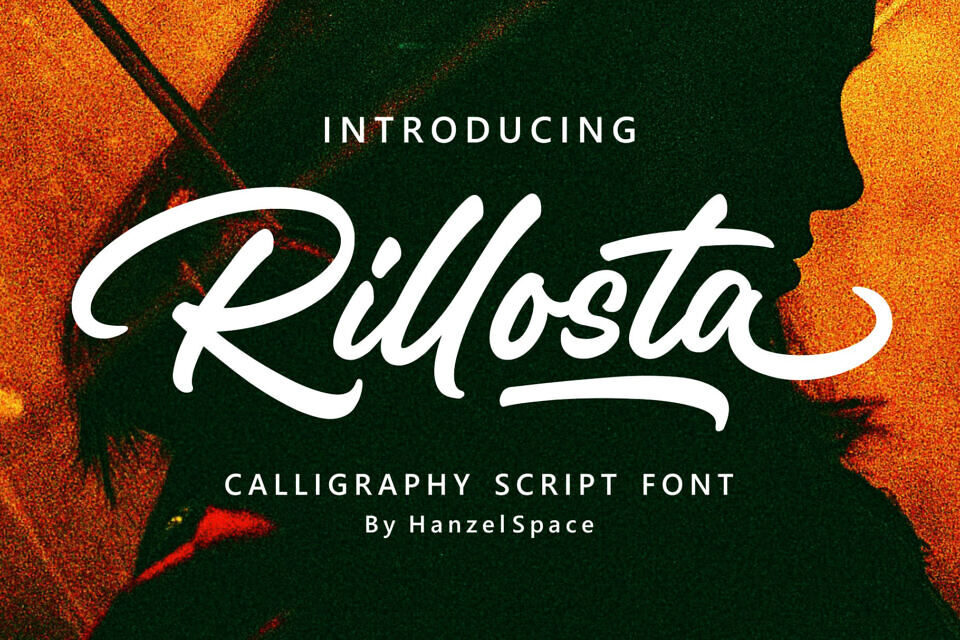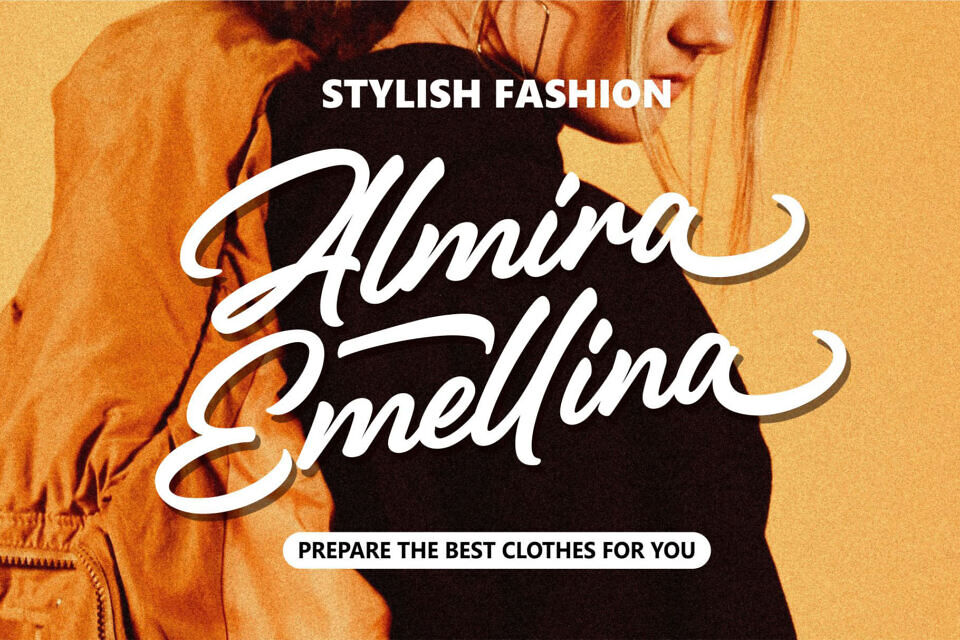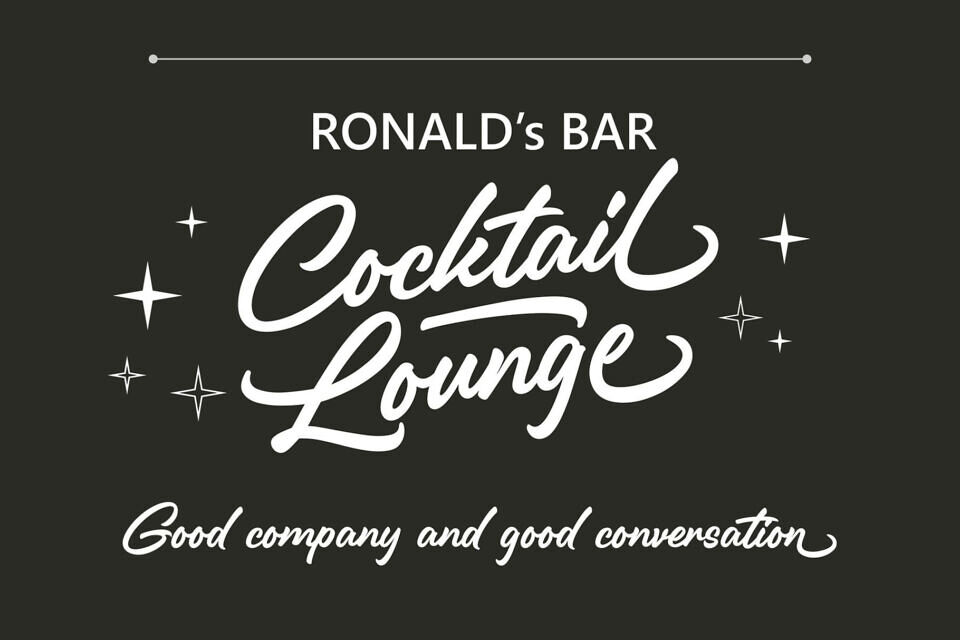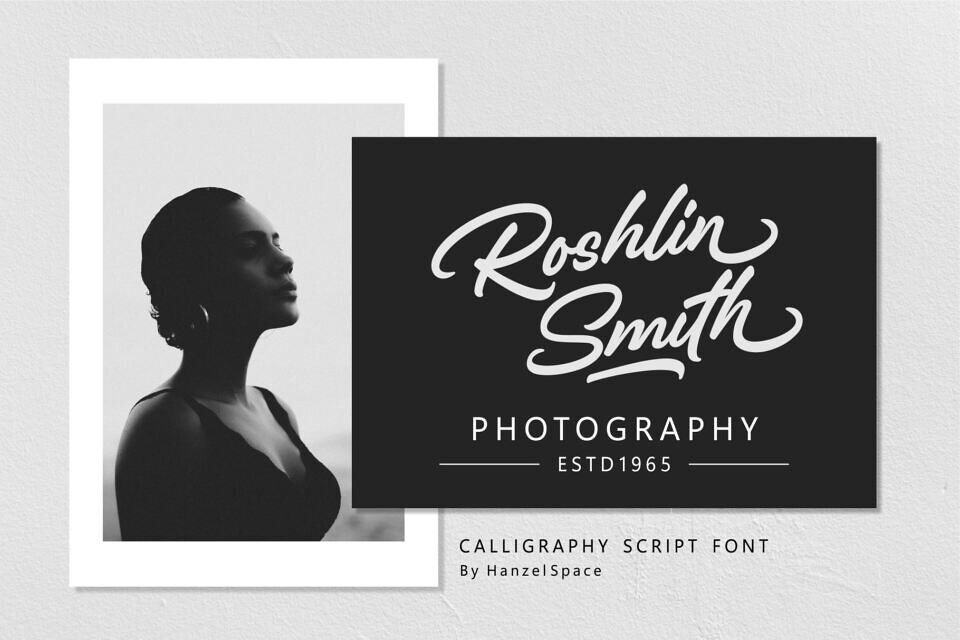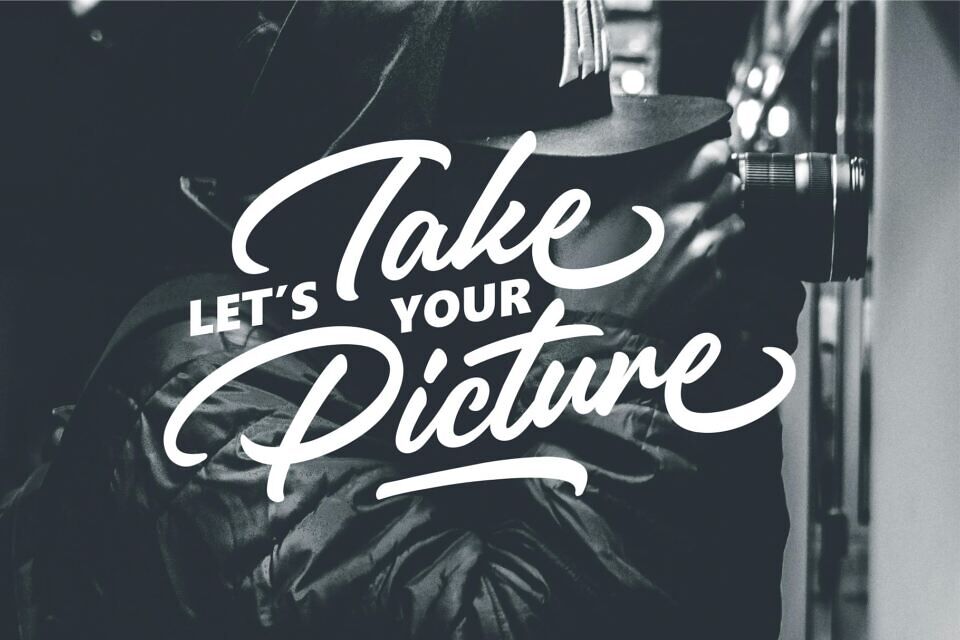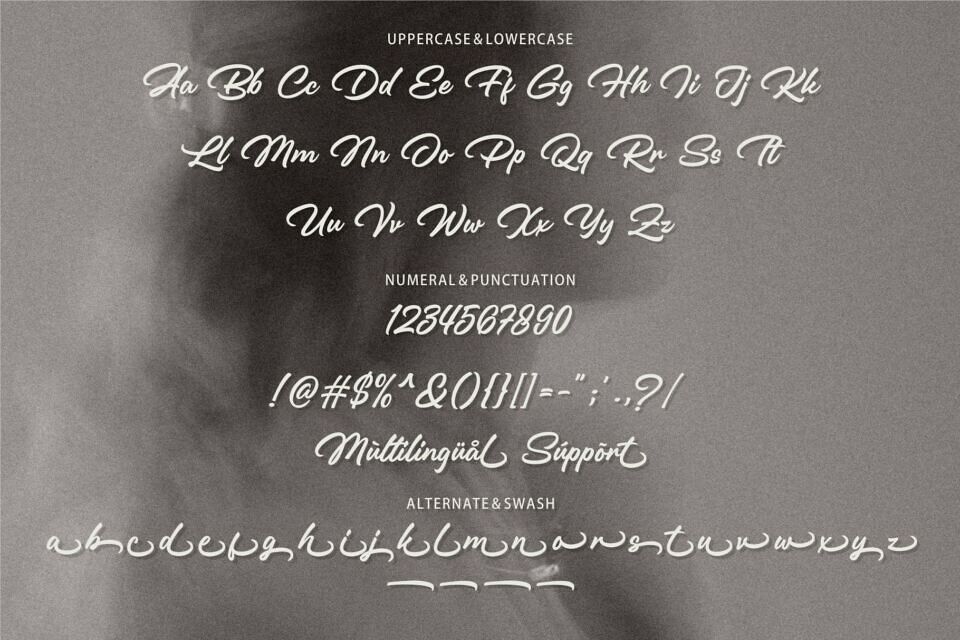
Rillosta Font
Introducing the “Rillosta” font, this font is made with a slightly thick calligraphy equipped with alternative letters behind it and if you pay attention. It looks elegant and attractive so this font is very suitable for use in various designs for product branding, logos, labels and others.